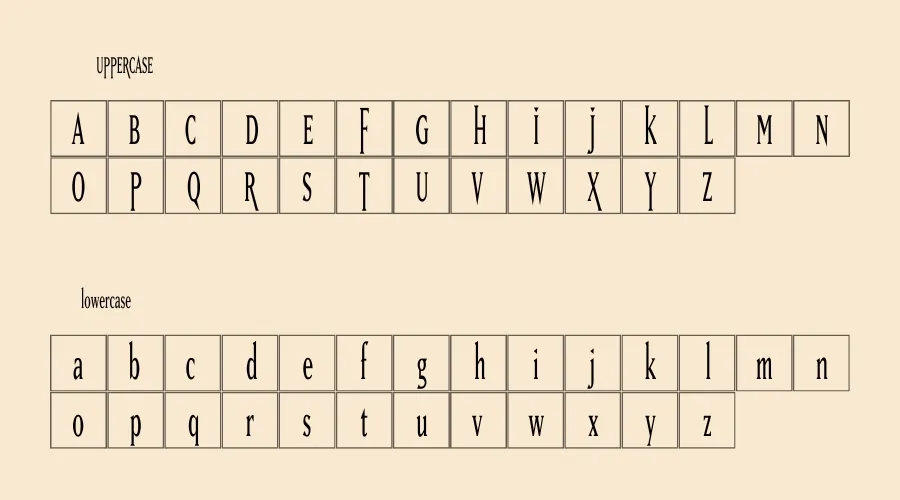
Matrix Tall Font
About Matrix Tall Font
The Matrix Tall Font was created by Zuzana Licko. This style is under the category of the Serif typeface family and contains multiple additional characters of the alphabet set. This outstanding texture was published in 1986 through a monotype foundry.
This font includes different weights such as bold, italic, and regular, and contains small letters, capital letters, digits, marks, and punctuations. This attractive typeface is suitable for both Adobe Photoshop and CSS.